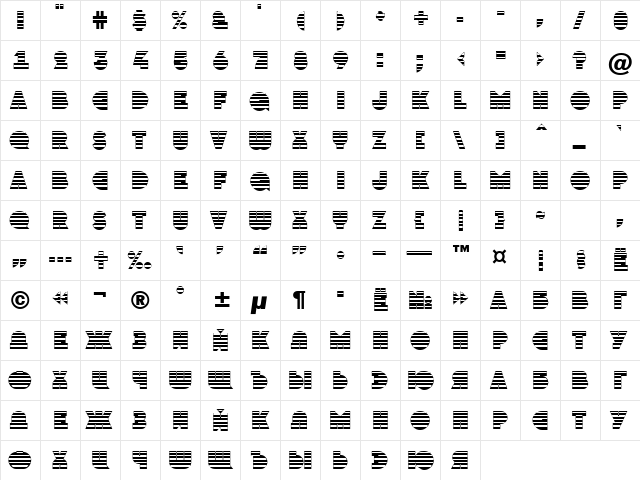
a_GrotoStrGr Normal
Design Context for a_GrotoStrGr Typeface
a_GrotoStrGr is a composed and adaptable typeface that performs quietly and consistently across a wide range of design contexts.